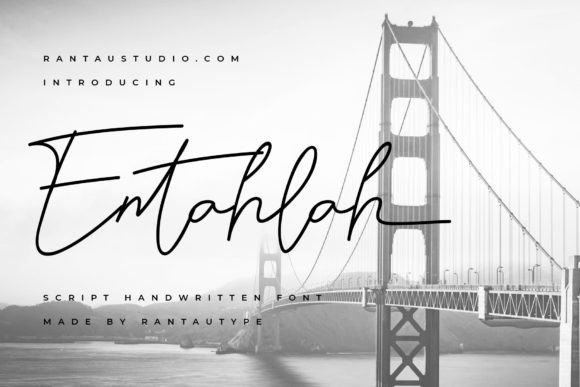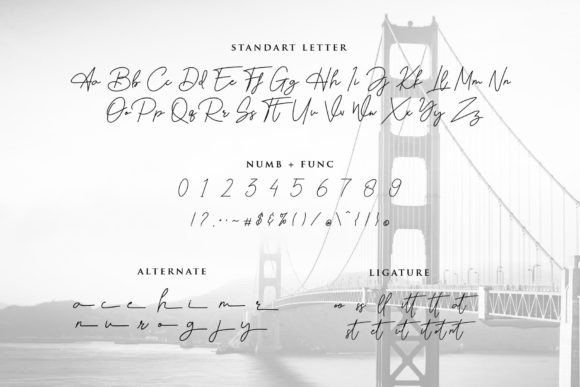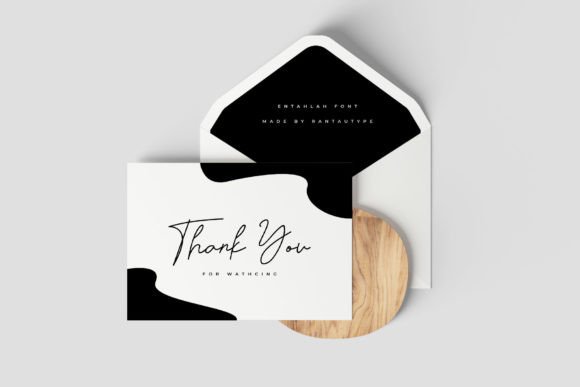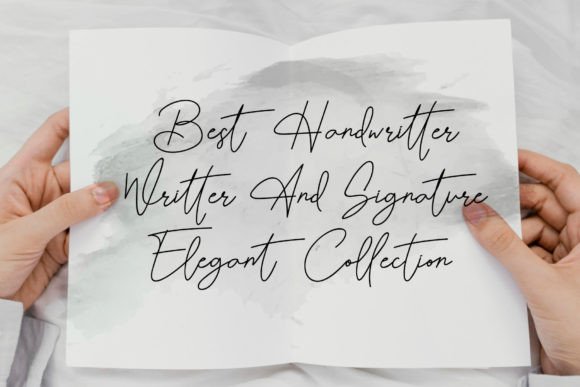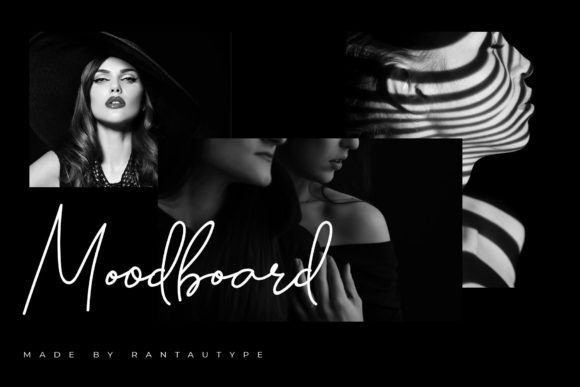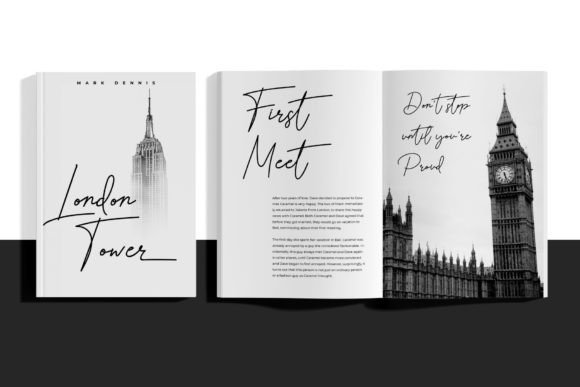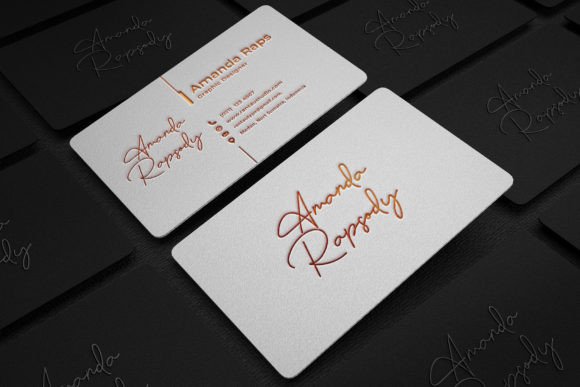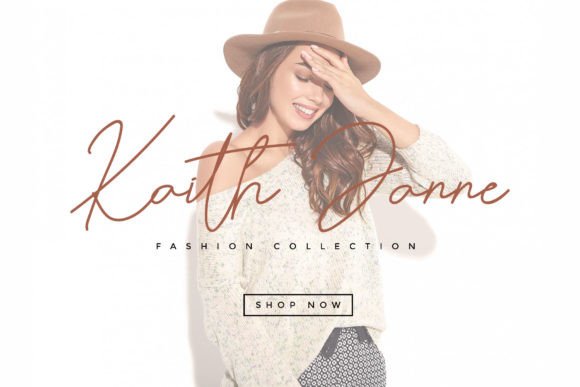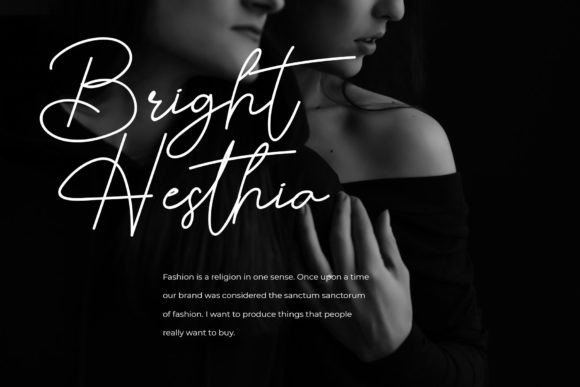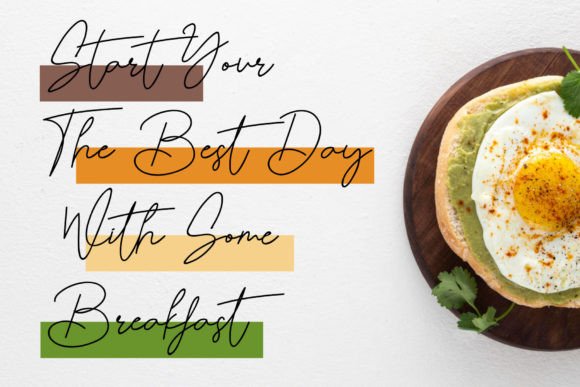
Entahlah Font
Add Elegant Signature Style with Entahlah Font
The Entahlah font is a clean signature-style script designed to bring sophistication and professionalism to your creative projects. Ideal for logos, wedding invitations, romantic quotes, logotypes, posters, social media kits, book covers, t-shirt designs, packaging, and many more, Entahlah adds a polished and modern touch.
Perfect for Branding, Invitations, and More
The Entahlah font works beautifully across various design applications including brand logos, personalized invitations, editorial layouts, merchandise designs, and product packaging. Its smooth strokes and refined style create an elegant and memorable impression.
PUA Encoded for Easy Access to Glyphs and Swashes
Despite its decorative style, the Entahlah font maintains excellent readability at various sizes. Whether used for large titles or smaller text elements, it balances elegance with clarity, making it a versatile choice for many creative projects.
Make Your Designs Shine with Signature Elegance